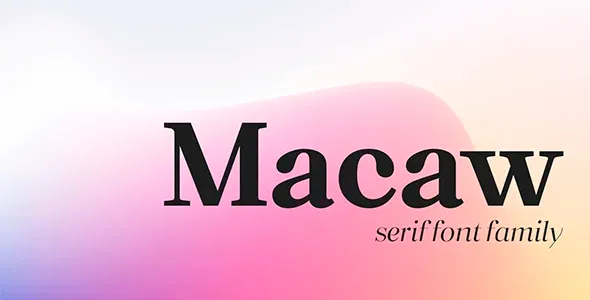
Macaw Serif Typeface Premium Font
Macaw Serif Typeface Premium Font is a welcome addition to our library, a modern serif typeface with roots in classic typography. Its shapes are restrained and delicate in its lighter weights, and as you increase the width to the bolder ones, it unleashes a powerful and distinctive emphasis on your project.
Macaw Serif Typeface Premium Font is Ideal
Developed in a range of four weights with a matching set of true italics, Macaw’s design is inspired by the Italian newspaper market at the beginning of the last century, a time when Roman typography predominated. In fact, the main objective of this typeface is to preserve versatility and legibility, to dispense with any text size.